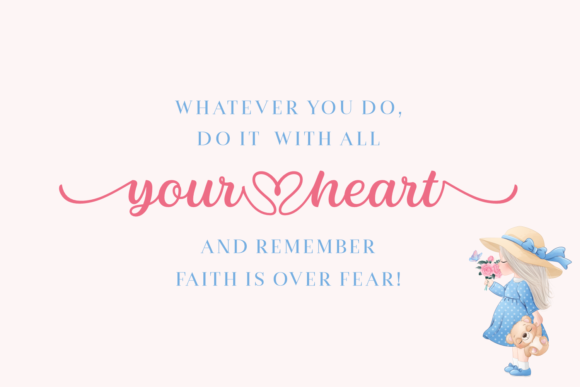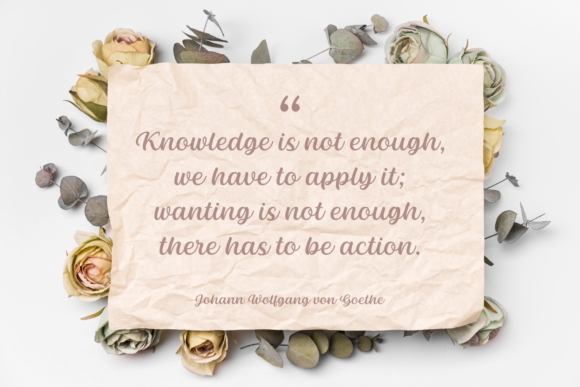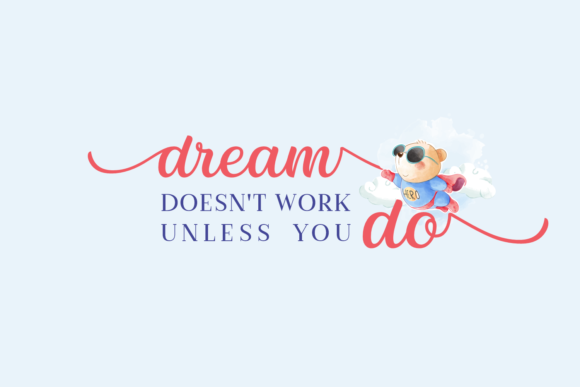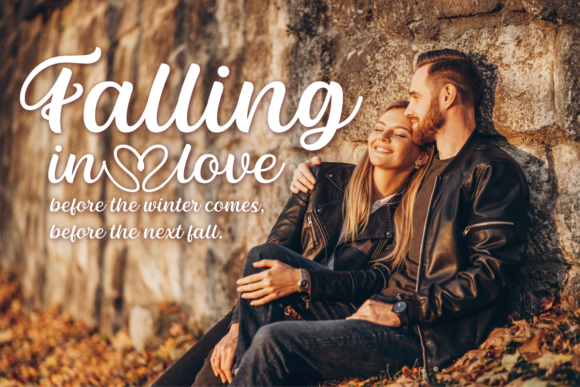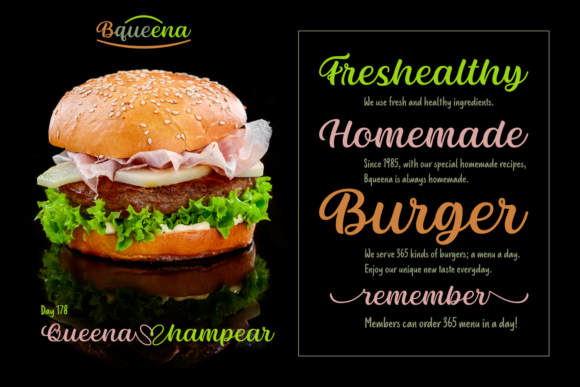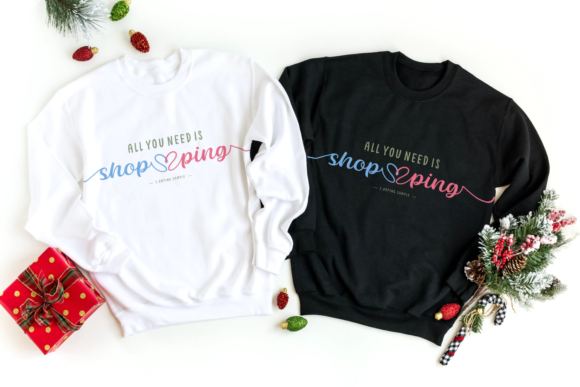
Introduction to Max Min Font
As a designer, have you ever stumbled upon the perfect font to elevate your creative project? The moment when everything falls into place, and your design comes alive? That’s exactly what happened when I discovered the Max Min Font. This delicate and elegant handwritten font has been a game-changer for me, and I’m excited to share its magic with you.
With its distinct and well-rounded letters, the Max Min Font is a true masterpiece. Its versatility makes it perfect for a wide range of design projects, from blog posts with transparent backgrounds to high-quality print materials. And the best part? It’s a free download, making it an invaluable design resource for designers of all levels.
Whether you’re working on a creative project or just looking for a new font to spice up your designs, the Max Min Font is definitely worth exploring. In this article, we’ll dive deeper into the world of this amazing font and discover why it’s a valuable addition to any designer’s toolkit.
Key Features of Max Min Font
- Unique, hand-crafted design that adds a touch of elegance to any creative project
Honest Review: Max Min Font
I recently came across the Max Min Font, and I must say it’s a great addition to my design resource library. This font is perfect for any creative project that requires a clean and modern aesthetic.
One of the things that stands out about Max Min Font is its versatility. It’s suitable for both body text and headings, making it a great all-around font choice.
- ✨ High quality design: The font is well-designed and looks great on both light and dark backgrounds.
- ⚠️ Limited character set: While the font is great for basic text, it lacks some of the more specialized characters and symbols that designers may need.
Overall, I’m really impressed with the Max Min Font. Its clean design and versatility make it a great addition to any design project. While it may have some limitations, I think it’s well worth downloading and using in your next creative project.
Max Min Font: A High-Quality Design Resource
Max Min Font’s transparent background feature makes it perfect for creating eye-catching graphics and designs.
Max Min Font’s high-quality design makes it ideal for creative projects that require precision and attention to detail.
Getting the Most Out of Max Min Font
Max Min Font is commonly used in: